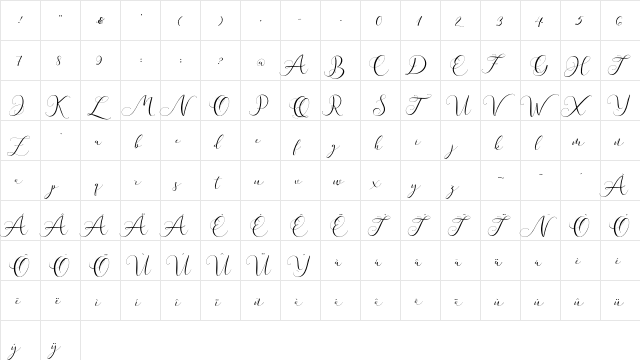
Andieny Regular
| Designer | thirtypath |
Design Context for Andieny Typeface
Andieny is a composed and adaptable typeface that performs quietly and consistently across a wide range of design contexts.